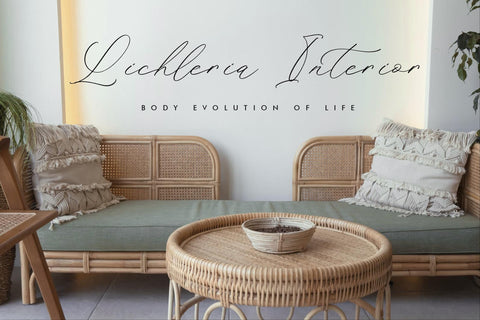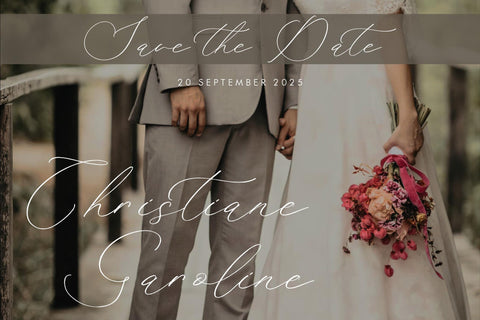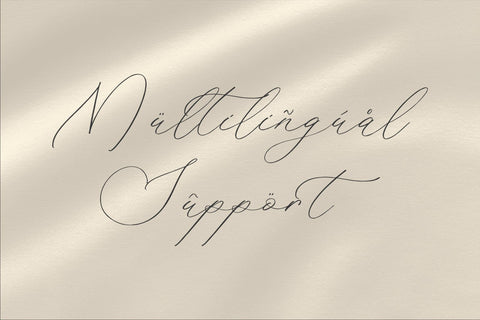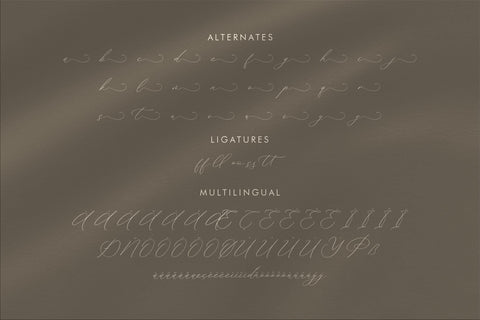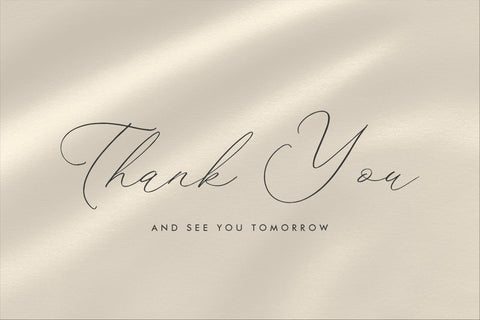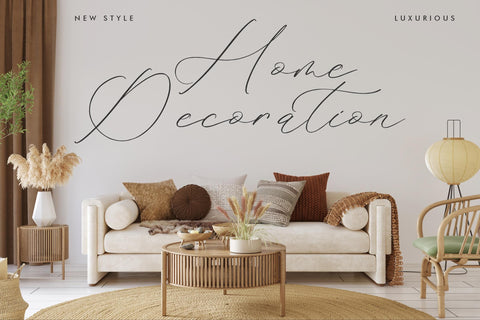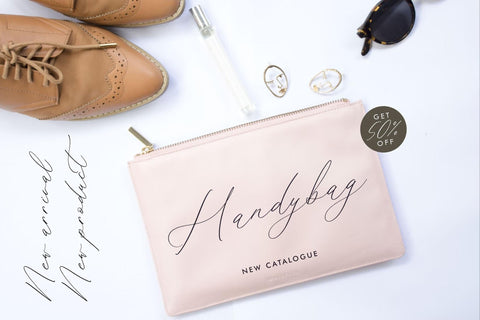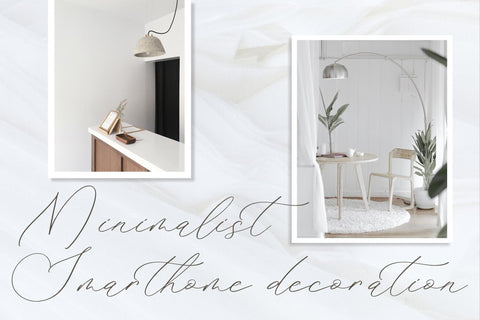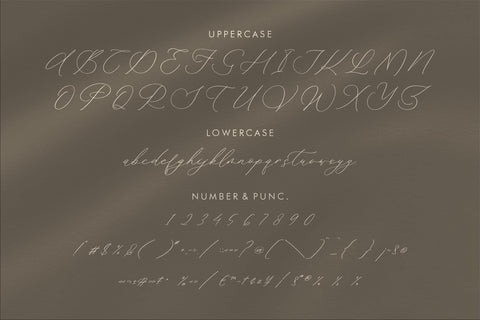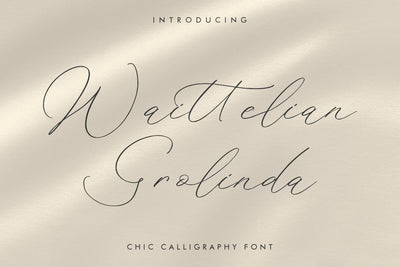
Waittelian Grolinda - Chic Calligraphy Font
Proudly present Waittelian Grolinda - Chic Calligraphy Font , created by Storytype,
A luxury script that has own unique style & modern look.